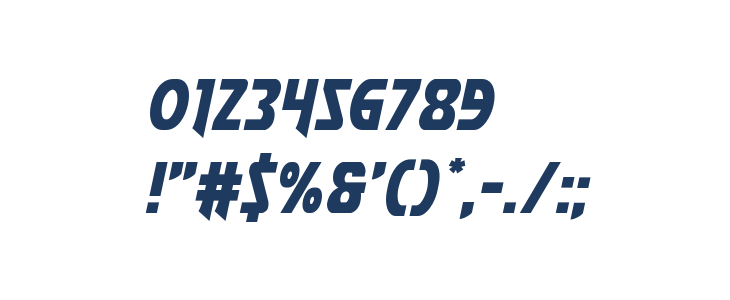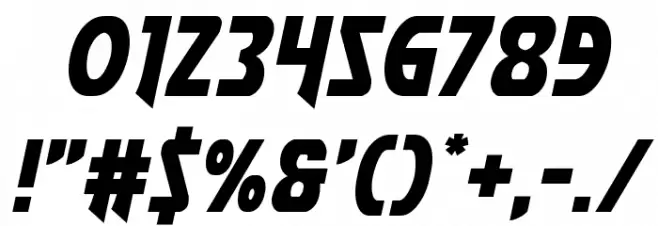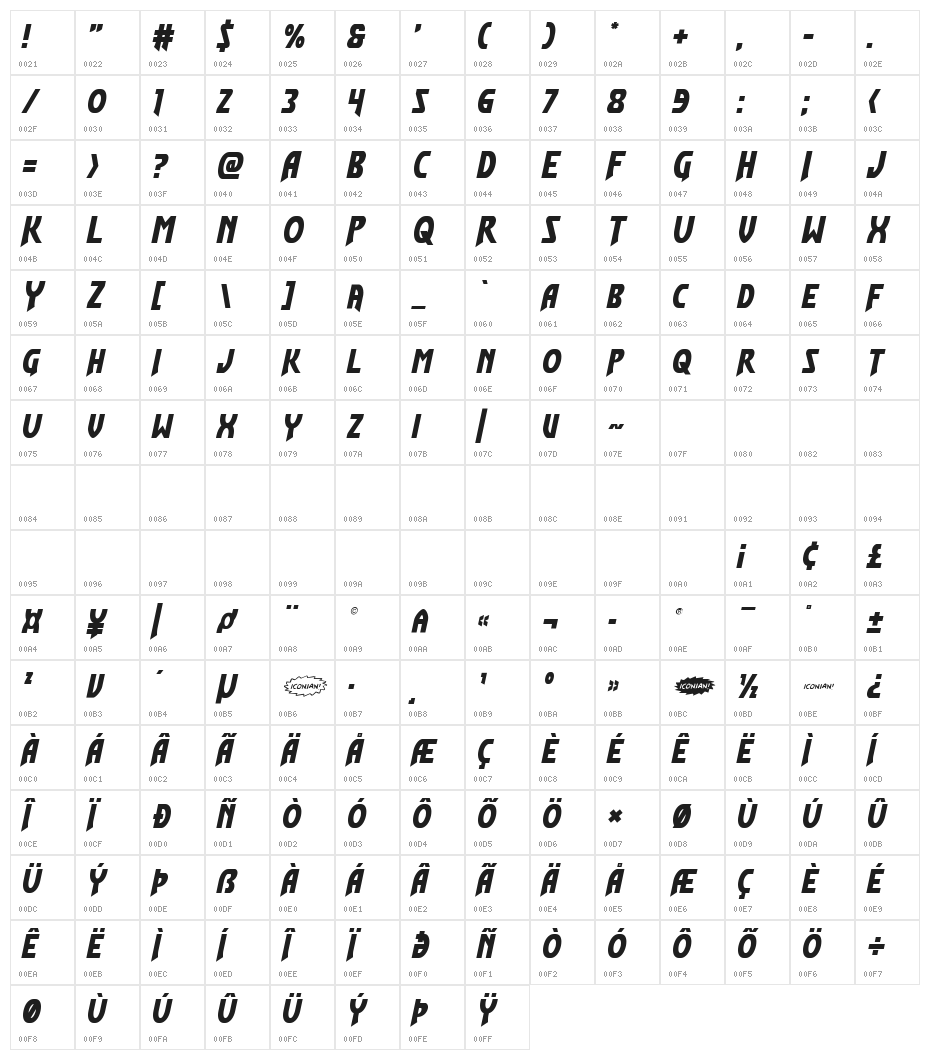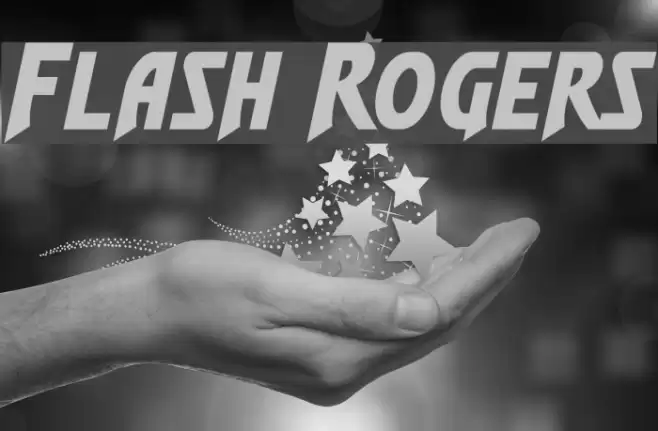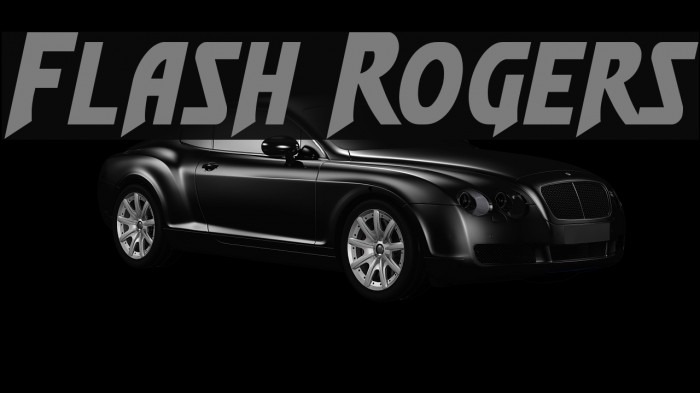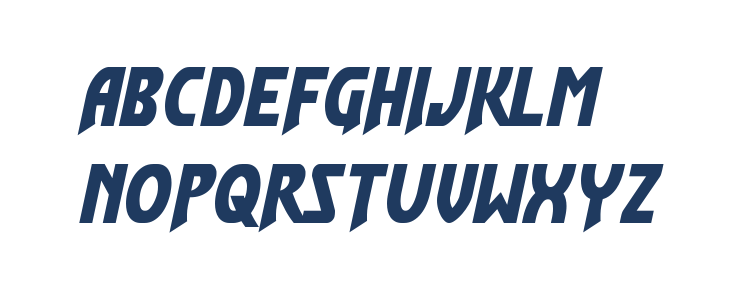
Flash Rogers Font
Flash Rogers Description
This font features a bold and dynamic style with sharp, angular edges and a forward-leaning slant, giving it a sense of motion and energy. The uppercase and lowercase letters maintain a consistent design, emphasizing a futuristic and sporty aesthetic. The numbers and special characters follow the same stylistic cues, ensuring uniformity across all glyphs. The font's unique design makes it stand out, ideal for projects that require a strong visual impact.
| Proposed Projects | Ideal for sports branding, action-themed posters, video game titles, and dynamic logo designs. |